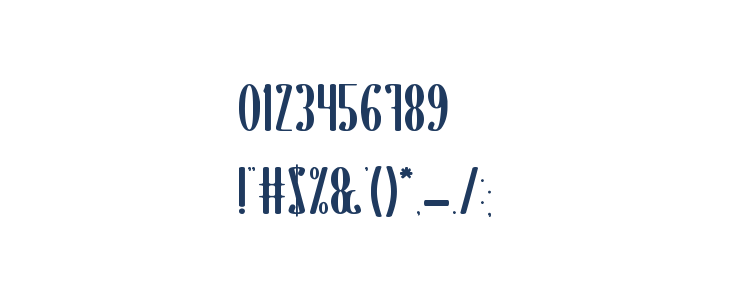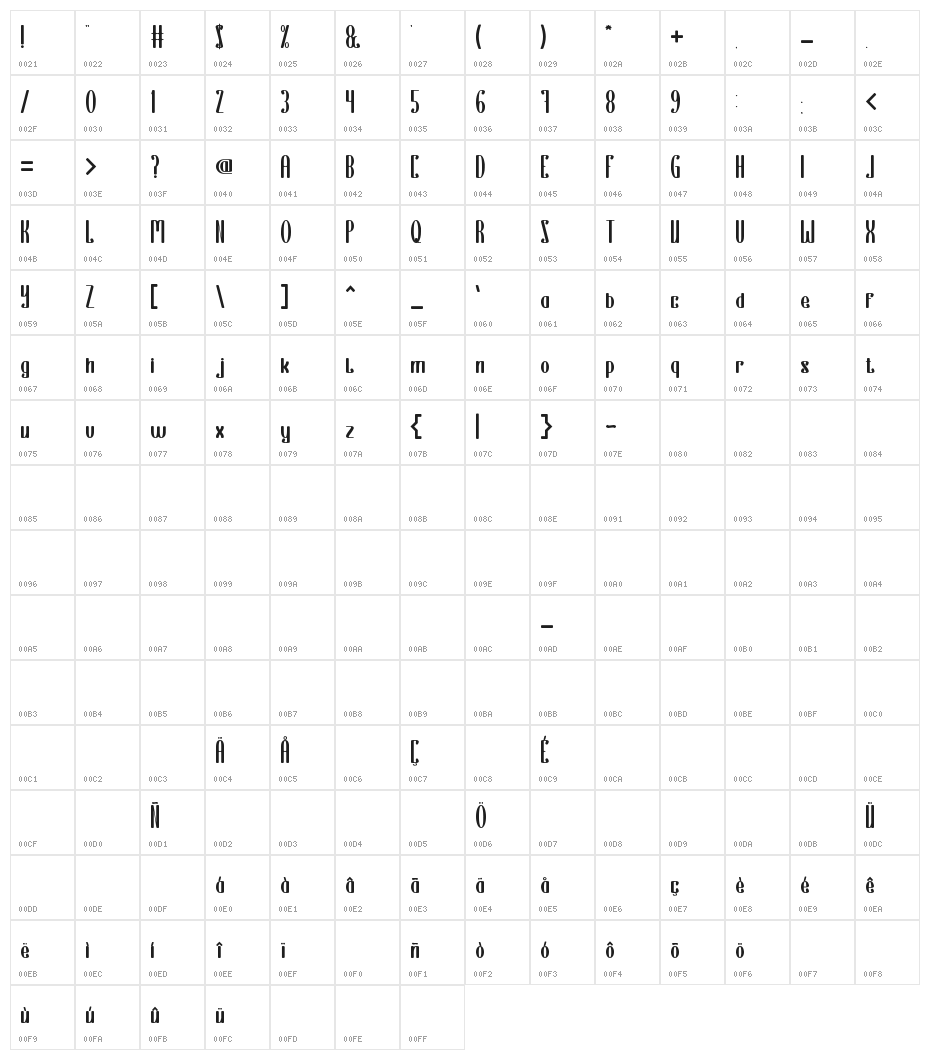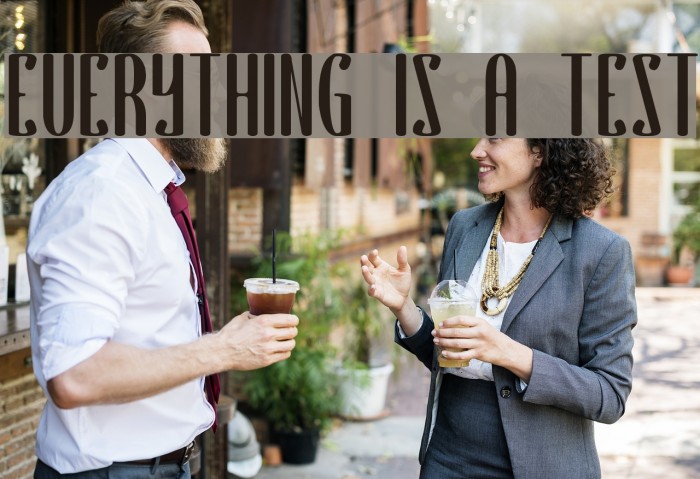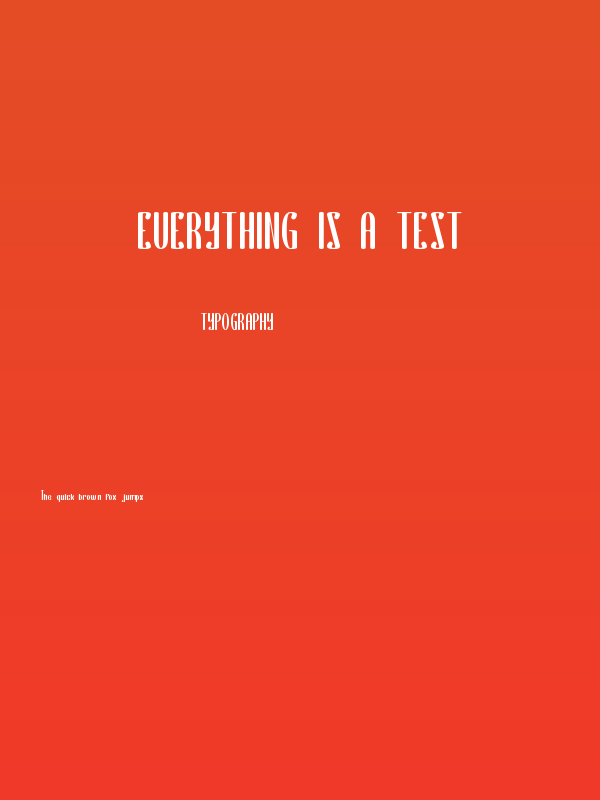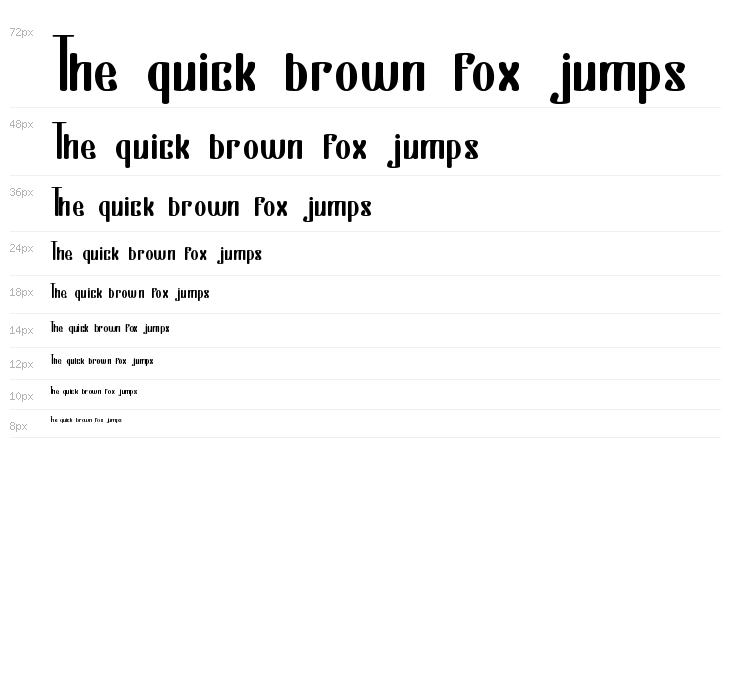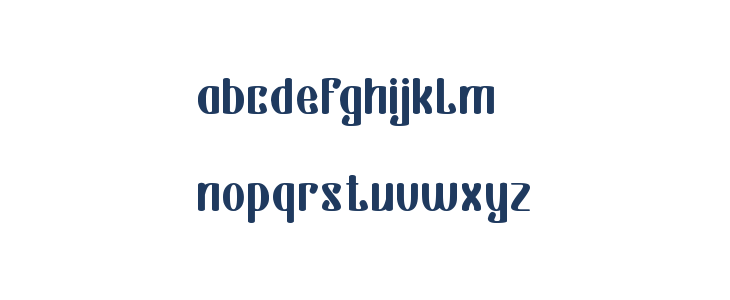
EVERYTHING IS A TEST Font
EVERYTHING IS A TEST Description
This font features a bold and playful design with a unique blend of rounded and elongated elements. The uppercase letters are tall and narrow, with a distinctive curve that adds a whimsical touch. The lowercase letters maintain a consistent style, with some characters like 'g' and 'y' having playful loops. Numbers are bold and clear, making them easily readable. Special characters are designed to match the overall style, ensuring a cohesive look across all text elements. The font's playful yet structured appearance makes it suitable for creative and modern projects.